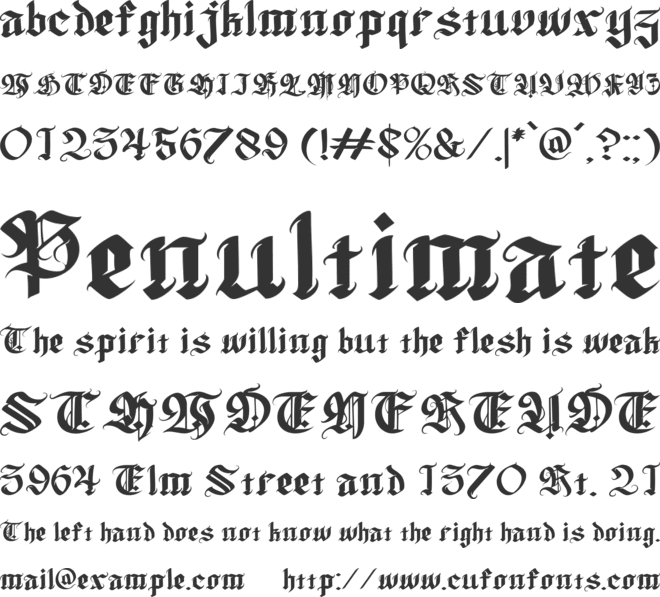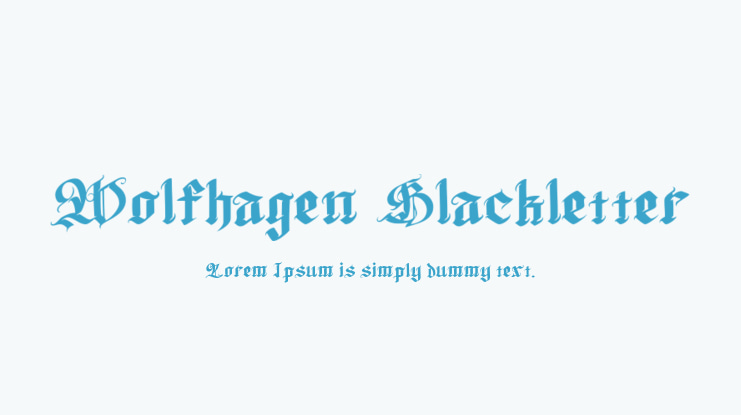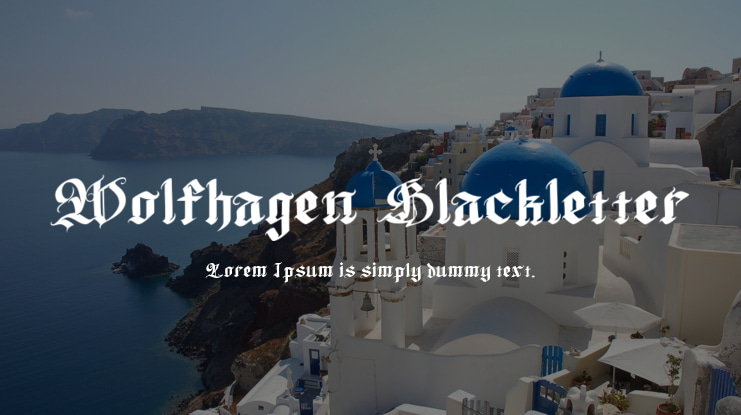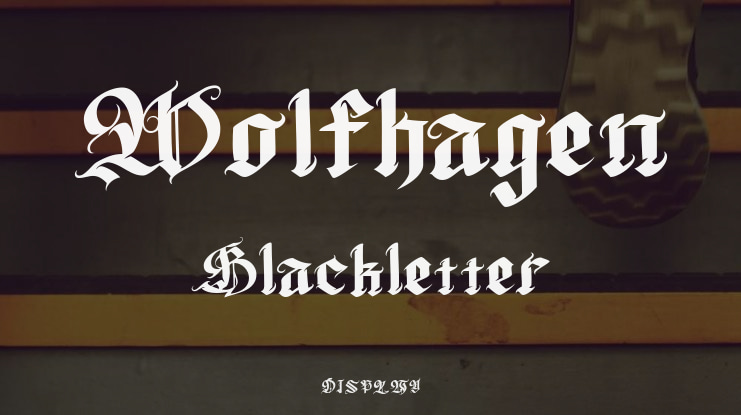
Wolfhagen Blackletter Font
Mohamad Farhan Ramadhan
Introducing Wolfhagen Blackletter, the epitome of medieval-modern elegance. This bold and stylish font seamlessly combines timeless aesthetics with contemporary flair. With its extensive multilingual support, Wolfhagen Blackletter transcends borders, empowering your creativity on a global scale. Ideal for headlines, art crafts, logotypes, and beyond, this font brings unparalleled sophistication to any project. Unleash the power of Wolfhagen Blackletter and make a lasting impression.